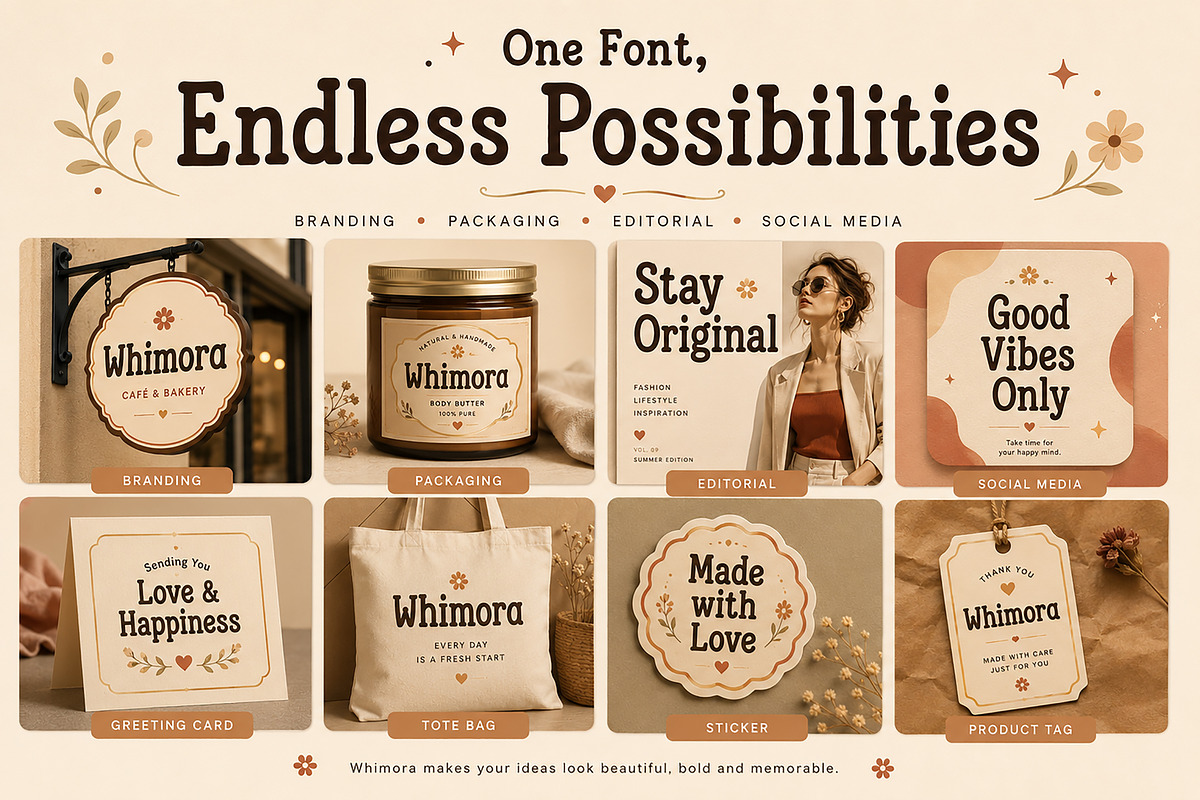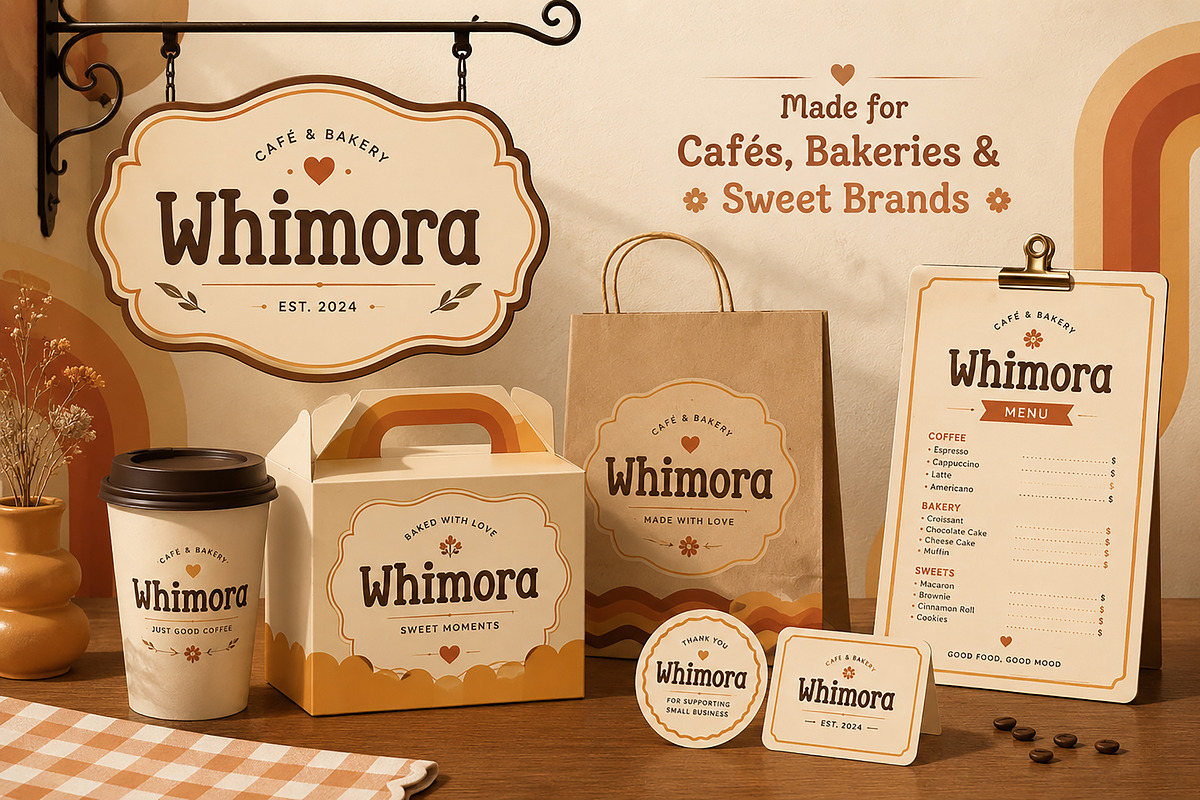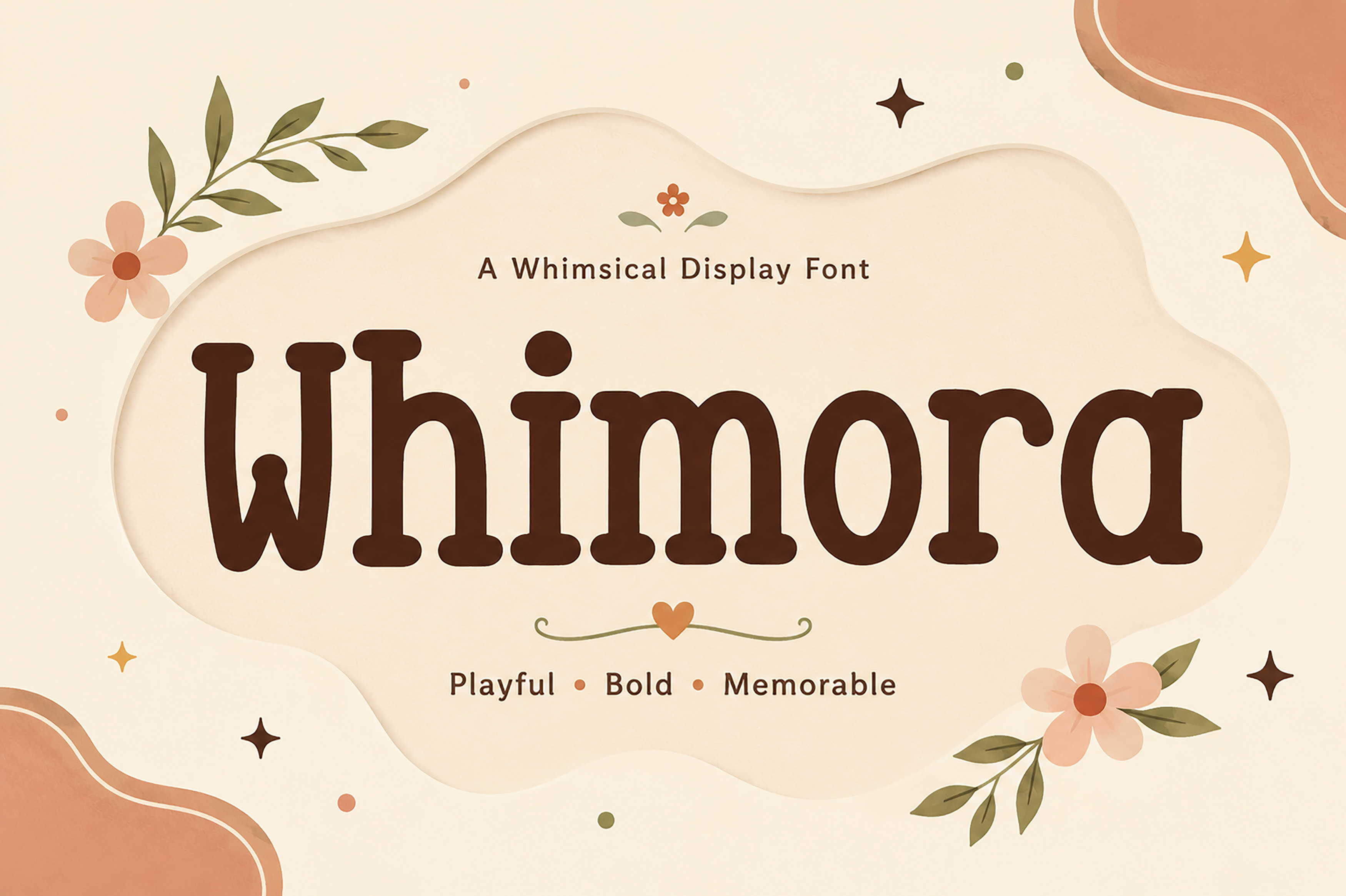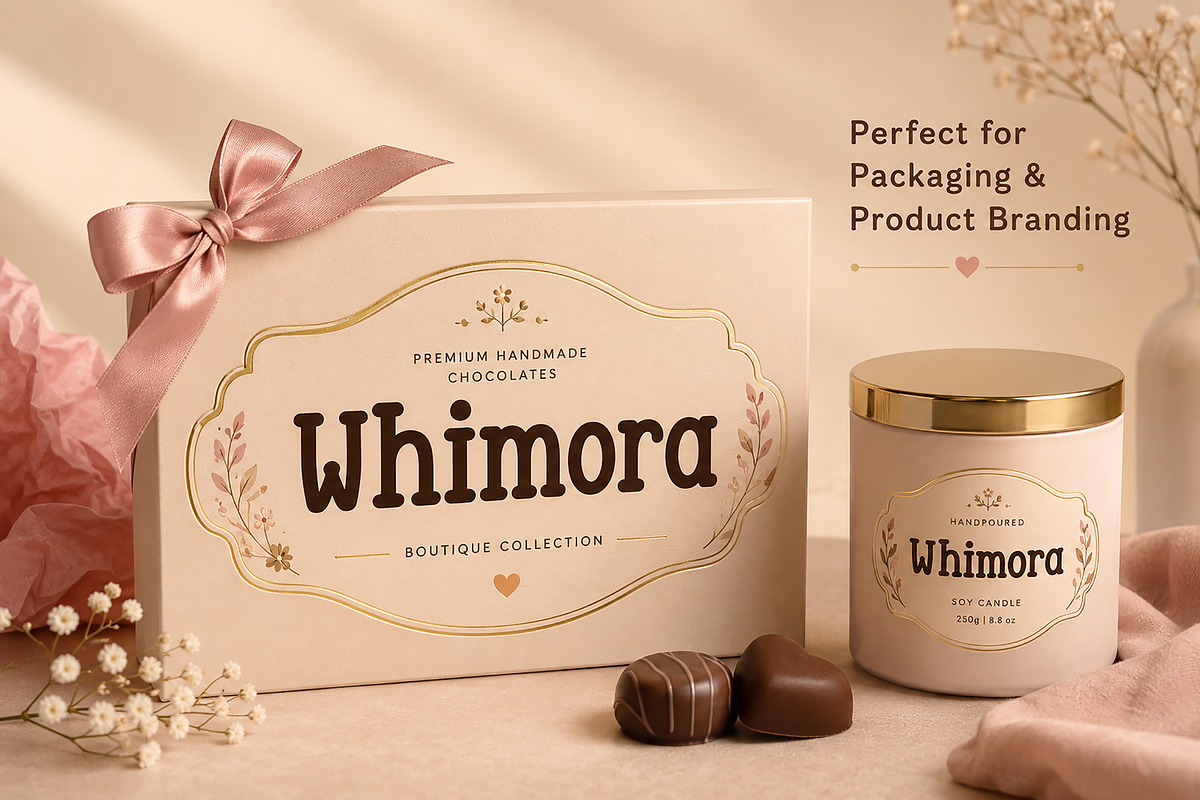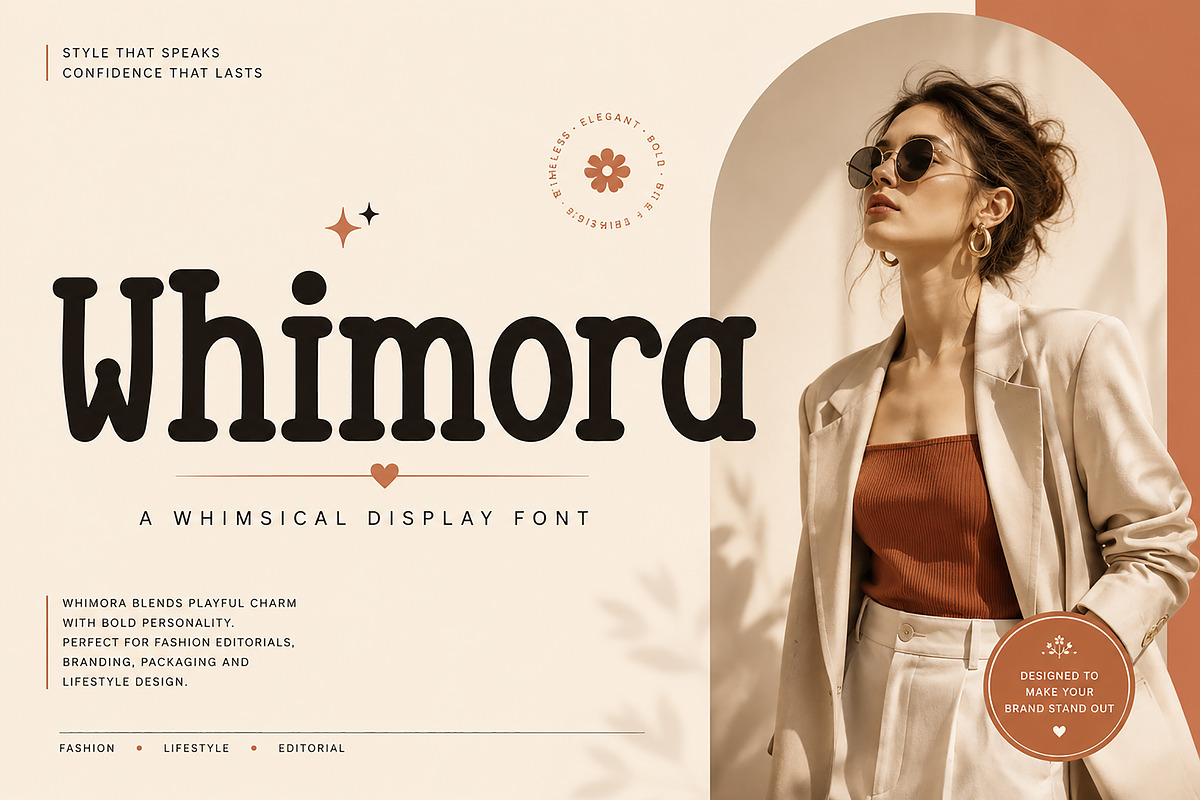
Whimora – Playful Display Font
Whimora – Playful Whimsical Display Font
Meet Whimora, a charming display font that combines playful curves with bold personality. Its rounded letterforms and whimsical character make it perfect for eye-catching branding, packaging, editorial headlines, social media graphics, greeting cards, café logos, bakery branding, children's products, and creative design projects.
Designed to be both fun and memorable, Whimora adds warmth and personality while maintaining a clean, premium appearance.
Bring your creative ideas to life with Whimora, a bold and whimsical display font designed for designers who love playful typography with a premium touch.
Featuring soft rounded edges, friendly proportions, and a distinctive handcrafted personality, Whimora is ideal for projects that need to feel warm, joyful, and unforgettable.
Whether you're creating boutique branding, café identities, packaging, posters, greeting cards, or social media graphics, Whimora helps your designs stand out with confidence and charm.
Its unique balance between playful and sophisticated makes it suitable for both personal and commercial projects.
• Branding & Visual Identity
• Logo Design
• Café & Bakery Branding
• Chocolate & Dessert Packaging
• Coffee Shop Designs
• Cosmetic Packaging
• Boutique Products
• Greeting Cards
• Stickers
• Tote Bags
• Product Labels & Tags
• Posters
• Editorial Headlines
• Magazine Covers
• Book Covers
• Social Media Graphics
• Children's Products
• Handmade Businesses
• Gift Shops
• Merchandise
• Creative Marketing Materials